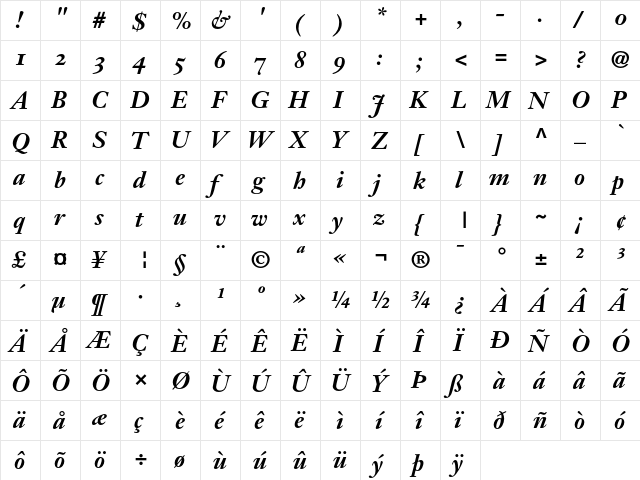
Janson Text 76 Bold Italic Oldstyle Figures
Design Context for Janson Text Typeface
Janson Text brings classic typographic sensibility to the table — its serifs and measured letterforms reflect centuries of print heritage. The dynamic lean of this cut emphasises speed and emphasis in any layout. Its bold stroke weight gives it real presence on the page.
Pro Tip: Use Janson Text for editorial body copy and considered headline work. Pair with a neutral sans for UI elements or captions to create a classic hierarchy.